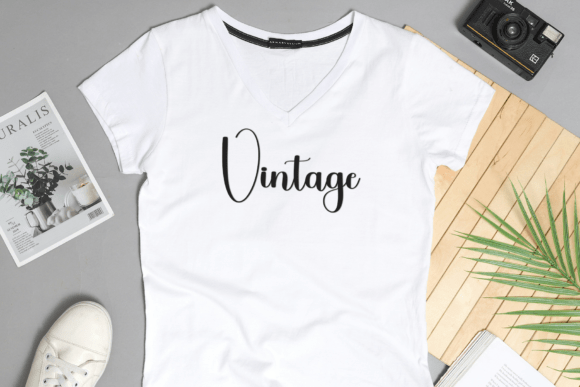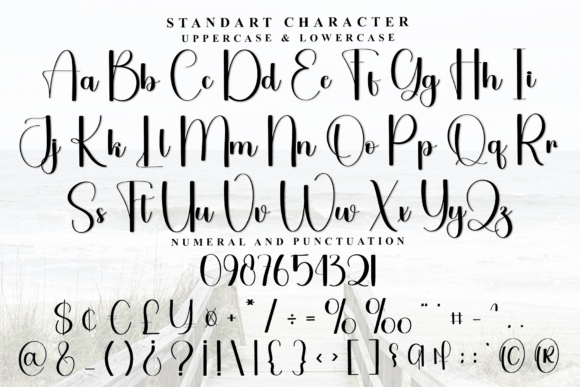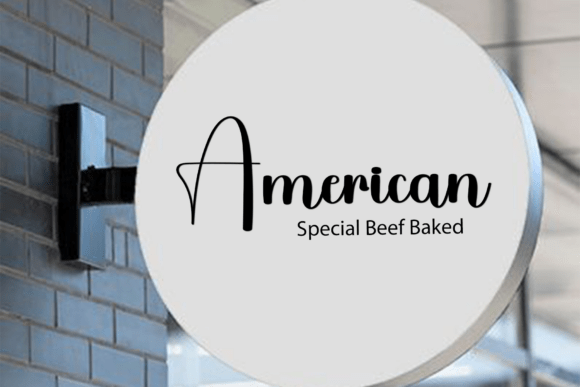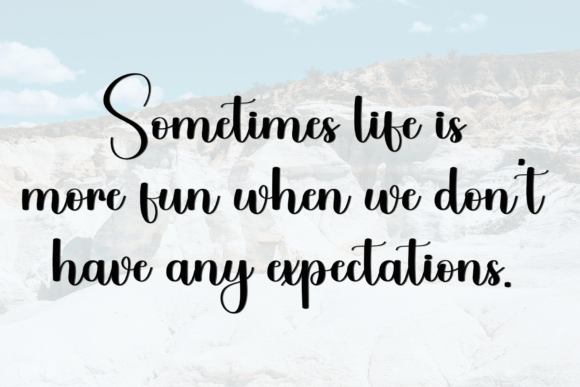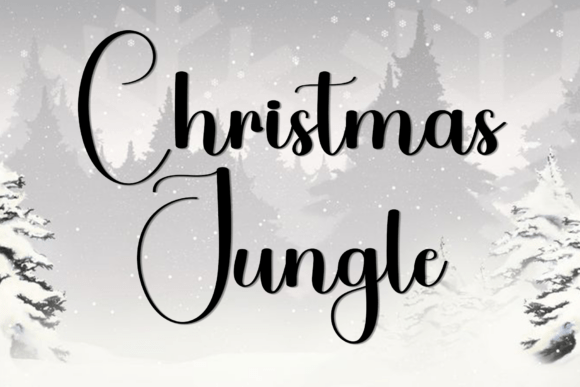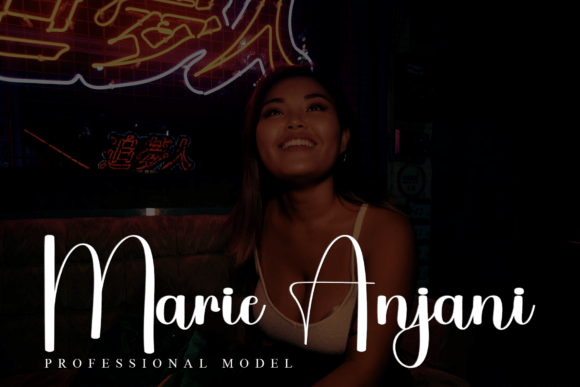
The Aesthetical Font: A Warm and Playful Addition to Your Design Toolkit
I’ll never forget the time I was working on a project for a client’s birthday party invitation. I had a clear vision of a fun, playful design, but I just couldn’t find the right font to bring it all together. That’s when I stumbled upon the Aesthetical font, and it instantly became the perfect fit. With its casual and creative vibe, it added a warmth and friendliness to the design that perfectly captured the tone of the party.
An Honest Review of Aesthetical
- ✨ The round, playful strokes that give it a relaxed and approachable feel
- ✅ The charming, hand-drawn aesthetic that adds a fun and unique touch to any design
- 🎉 The font’s versatility, making it perfect for personal projects, invitations, and social media graphics
While Aesthetical is an amazing font, there are a few things to keep in mind:
- 🤔 It may not be the best choice for very formal or professional projects, as it can come across as too casual
- ⚠️ Some users have reported issues with kerning, but this can usually be adjusted in design software
A Practical Guide to Using Aesthetical
The Story Behind Aesthetical
Aesthetical was designed with the intention of creating a font that would bring a sense of warmth and friendliness to any design. The designer, inspired by the playful and creative world of hand-drawn typography, set out to craft a font that would be perfect for personal projects and social media graphics.
Q: Is Aesthetical suitable for very formal or professional projects?
A: While Aesthetical is a beautiful font, it may not be the best choice for very formal or professional projects, as it can come across as too casual.